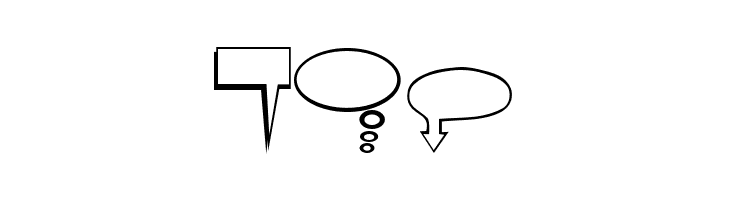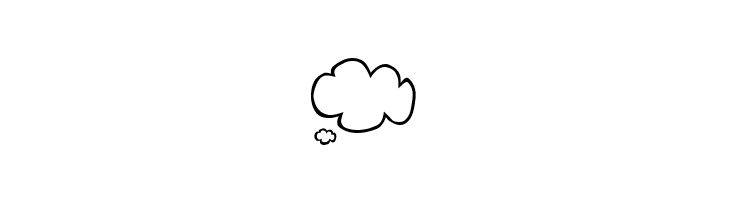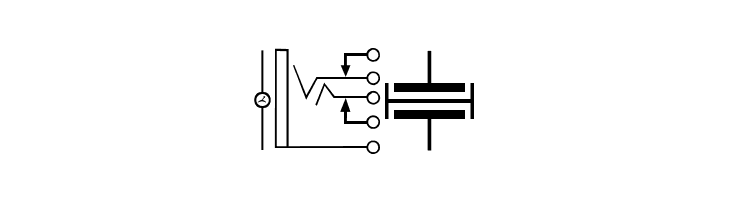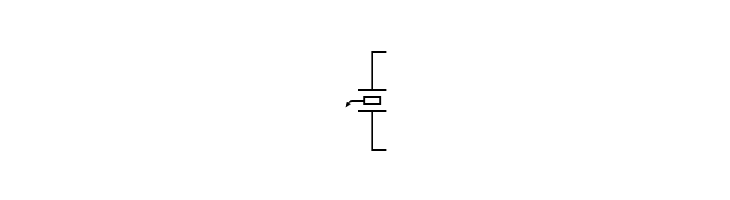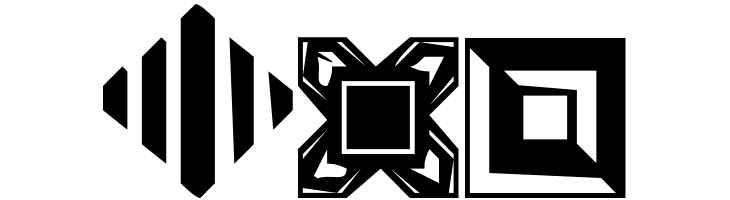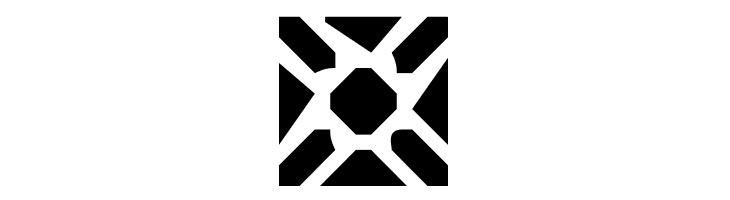
A diverse set of speech and thought bubble designs for creative projects.
A comprehensive set of electronic component symbols for technical diagrams.
Space-themed dingbat font with icons of rockets, planets, and spaceships.
A festive collection of Christmas-themed dingbats featuring ornaments, gifts, and holiday symbols.
A versatile collection of bold, geometric symbols with high contrast.
A bold, geometric font with a modern, industrial aesthetic.